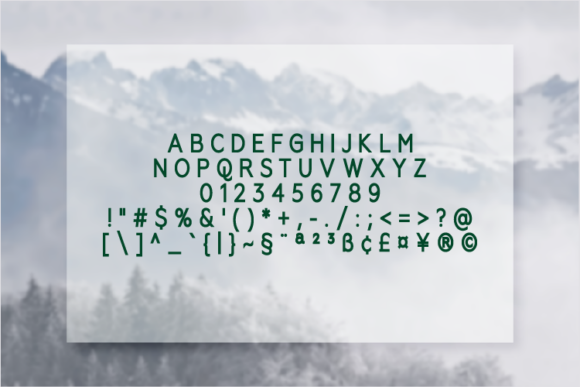
Introducing Allovoneue Extra Black Font: The Ultimate Geometric Sans-Serif
In the world of typography, fonts play a crucial role in communicating messages, expressing emotions, and creating visual identities. For designers and crafters, finding the perfect font can be a daunting task. However, if you’re looking for a fresh, geometric, and versatile sans-serif font, look no further than Allovoneue Extra Black Font. In this article, we’ll dive into the features, benefits, and uses of Allovoneue, and explore why it’s a must-have for any design enthusiast.
What is Allovoneue?
Allovoneue is a modern, geometric sans-serif font family that boasts geometrical letterforms, sharp edges, and minimal stroke contrast. Inspired by neo-grotesk fonts from the 20th century, Allovoneue offers a unique blend of classic and contemporary design elements. Its clean lines, precise curves, and balanced proportions make it an ideal choice for a wide range of design applications.
Key Features of Allovoneue Extra Black Font
• Geometric Design: Allovoneue’s geometric letterforms provide a sense of modernity and sophistication, making it perfect for designs that require a clean and contemporary look.
• Sharp Edges: The font’s sharp edges add a touch of elegance and precision, giving your designs a professional and polished feel.
• Minimal Stroke Contrast: Allovoneue’s minimal stroke contrast ensures that the font remains legible and clear, even at smaller sizes.
• Versatility: This font family is incredibly versatile and can be used in various design applications, including magazines, posters, branding, and more.
Benefits of Using Allovoneue Extra Black Font
So, why should you choose Allovoneue Extra Black Font for your design projects? Here are just a few benefits:
• Improved Readability: Allovoneue’s clear and legible design ensures that your message is communicated effectively, making it perfect for body text and headings.
• Enhanced Visual Identity: The font’s unique geometric design and sharp edges help create a distinctive visual identity for your brand or project.
• Flexibility: Allovoneue’s versatility allows you to use it across various design applications, from print to digital media.
• Time-Saving: With Allovoneue, you can save time and effort in selecting and pairing fonts, as it can be used as a standalone font or in combination with other fonts.
Uses of Allovoneue Extra Black Font
Allovoneue Extra Black Font is an incredibly versatile font that can be used in a wide range of design applications, including:
• Magazines and Newspapers: Use Allovoneue for article titles, headings, and body text to create a clean and modern look.
• Posters and Flyers: The font’s bold and geometric design makes it perfect for creating eye-catching posters and flyers.
• Branding and Logo Design: Allovoneue’s unique design elements make it an excellent choice for creating logos, icons, and brand identities.
• Digital Media: Use Allovoneue for website headers, social media graphics, and digital advertising to create a consistent and professional visual identity.
In conclusion, Allovoneue Extra Black Font is a powerful and versatile geometric sans-serif font that offers a unique blend of modernity and sophistication. Its clean design, sharp edges, and minimal stroke contrast make it perfect for a wide range of design applications. Whether you’re a designer, crafter, or simply a typography enthusiast, Allovoneue is a must-have font that can elevate your designs and help you communicate your message effectively.